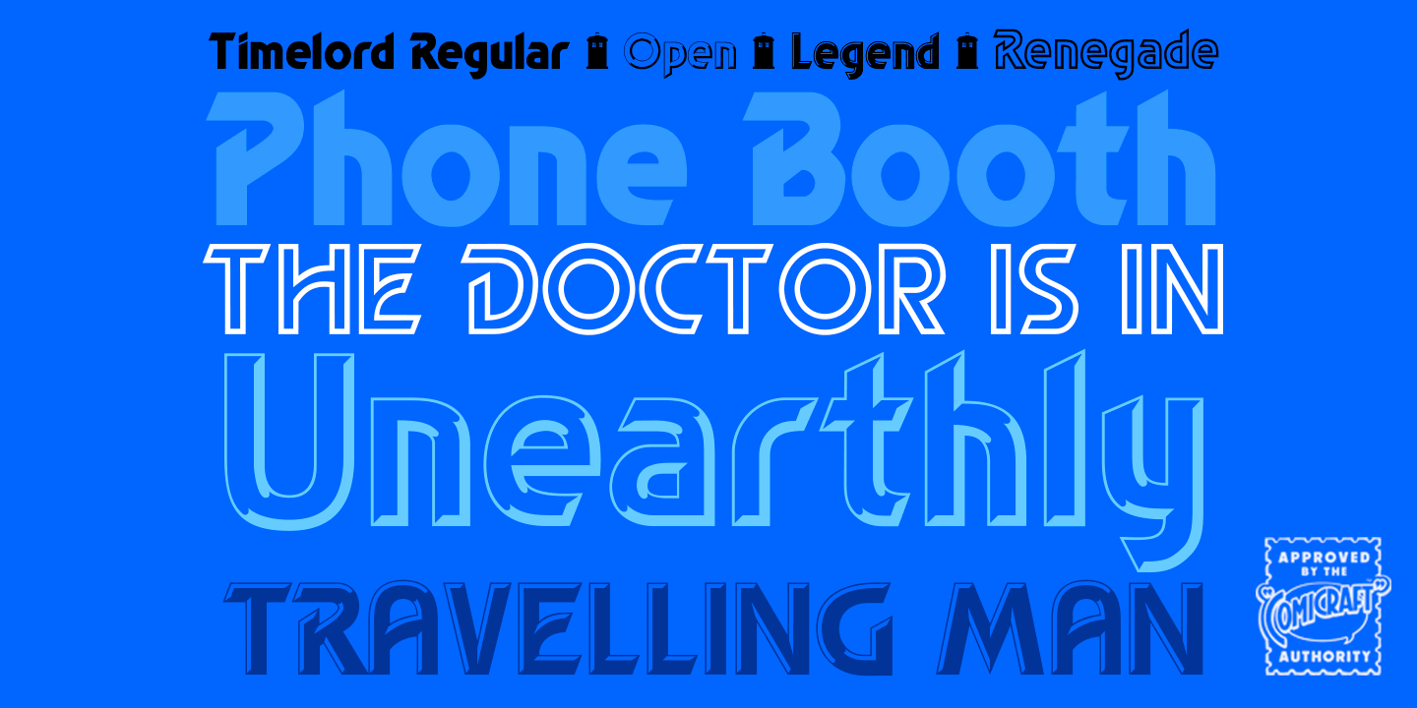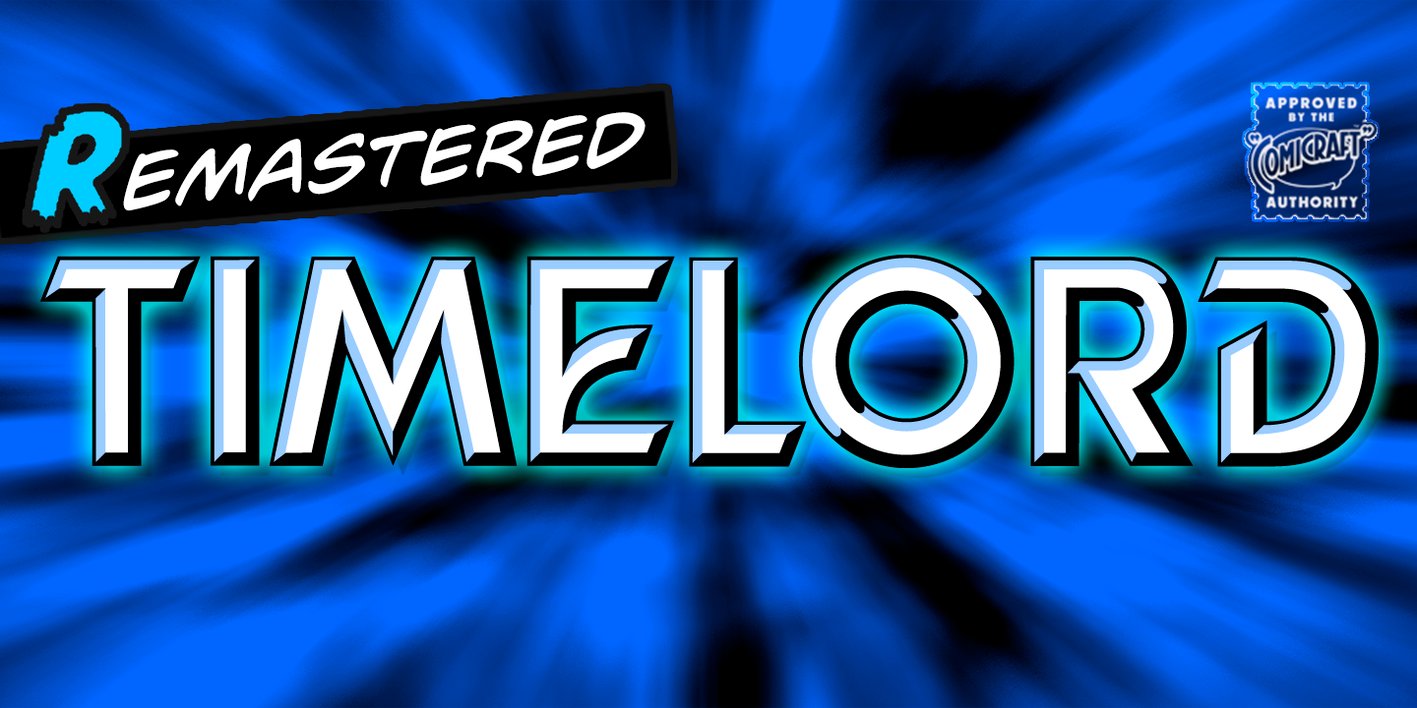
Timelord Font
Timelord Font is perfect for science fiction movie titles, time travel themed designs, futuristic branding, sci-fi book covers, temporal adventure graphics, galactic empire communications, space-time continuum presentations, interdimensional travel posters, cosmic event invitations, time machine laboratory signage, steampunk chronometer displays, and timeless projects that require powerful, time-bending typography with cosmic authority and temporal sophistication.
What makes Timelord Font so exciting is its cosmic gravitas and temporal authority that embodies the infinite power and timeless wisdom of beings who master space and time itself. This typeface features bold, dimensional letterforms with cosmic characteristics and time-warping details that evoke the majestic presence of ancient civilizations and advanced temporal technologies. The font's cosmic character and eternal appeal make it perfect for sci-fi projects and futuristic brands that want to communicate ultimate power, infinite knowledge, and the kind of temporal mastery that transcends ordinary limitations of space and time.
Timelord Font typically comes in multiple weights and styles including Regular, Bold, Cosmic, and Dimensional variations. Many versions also include temporal symbols, galactic ornaments, and time-related decorative elements that enhance the font's sci-fi functionality and provide designers with comprehensive tools for creating authentic, time-traveling typography compositions that span multiple dimensions and temporal realities.
Command time and space with the cosmic authority of Timelord Font Free Download. This dimensional typeface brings together temporal mastery with contemporary design functionality, making it an essential tool for sci-fi creators and futuristic organizations that need to create memorable, cosmically powerful communications that resonate with audiences seeking adventure across time and space. The font's temporal character ensures your sci-fi projects will convey infinite wisdom and cosmic authority.
Whether you're designing science fiction entertainment, futuristic branding, or temporal adventure materials, Timelord Font delivers exceptional cosmic presence and dimensional authenticity that connects with audiences who appreciate the infinite possibilities of time travel and space exploration. Its powerful, dimensional appearance works exceptionally well in large display applications where its cosmic details can create maximum otherworldly impact and temporal gravitas.
The dimensionally crafted letterforms of Timelord Font showcase the ultimate expression of temporal typography and cosmic design principles. Each character has been engineered to convey the infinite power and timeless authority of cosmic beings while maintaining excellent readability across all dimensions, ensuring that your temporal communications remain accessible while delivering the majestic presence that defines true masters of time and space.